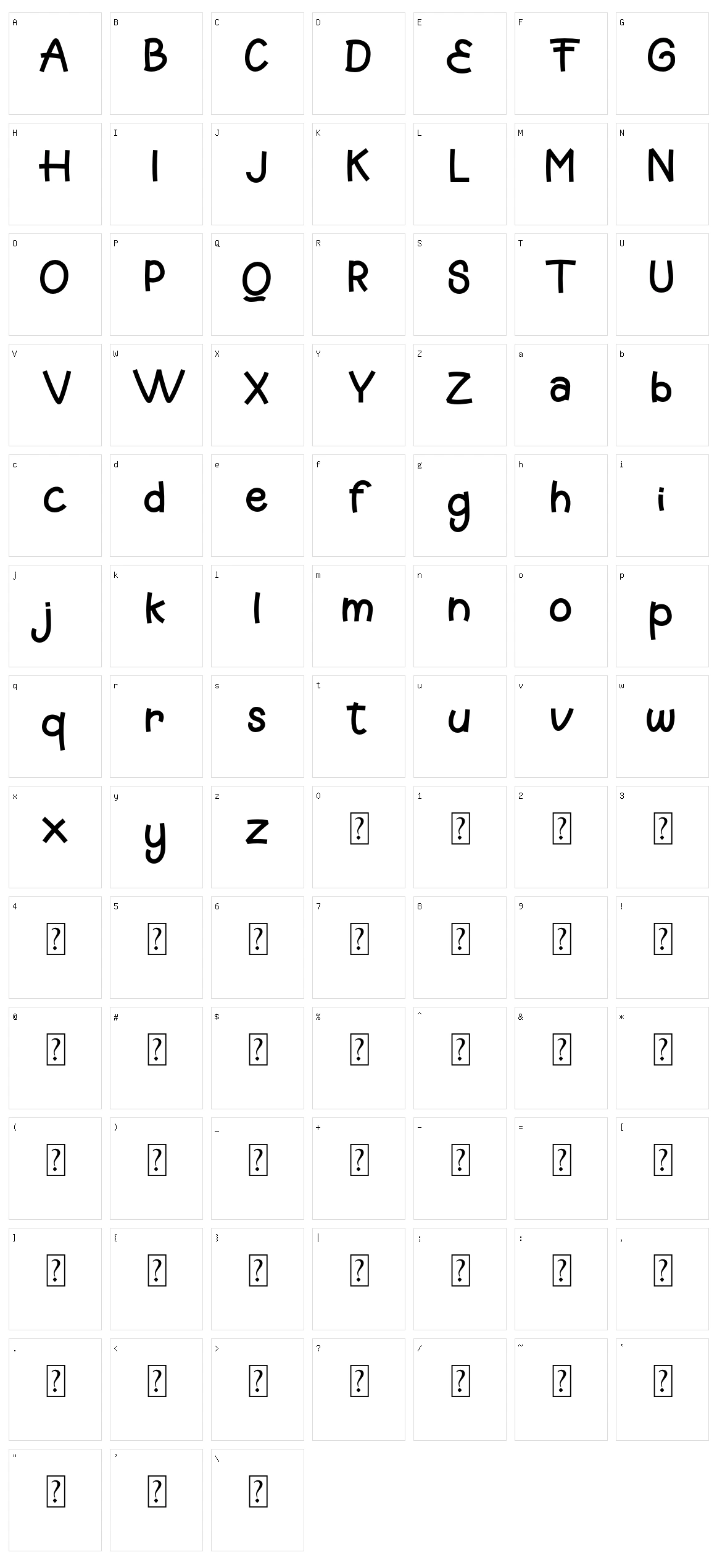
The free font Kitten Paw is carefully designed by RT Studio, showcasing a thoughtful balance of creativity and usability and falls under the Cartoon font style. When you download the ZIP file, it contains only 442.22 KB of font files, making it lightweight and quick to download. Please review the license details below to understand permitted usage and distribution rights. If license information is not available, we recommend using this font for personal projects only or contacting the author directly for commercial usage permissions.